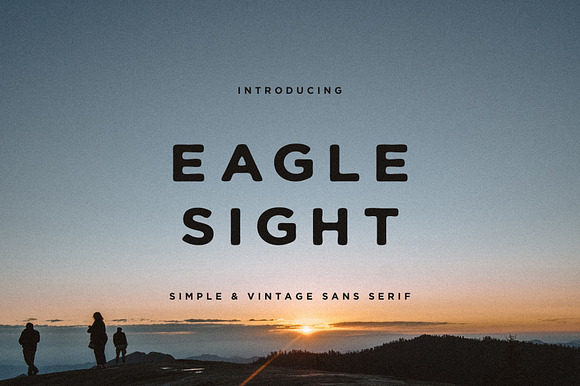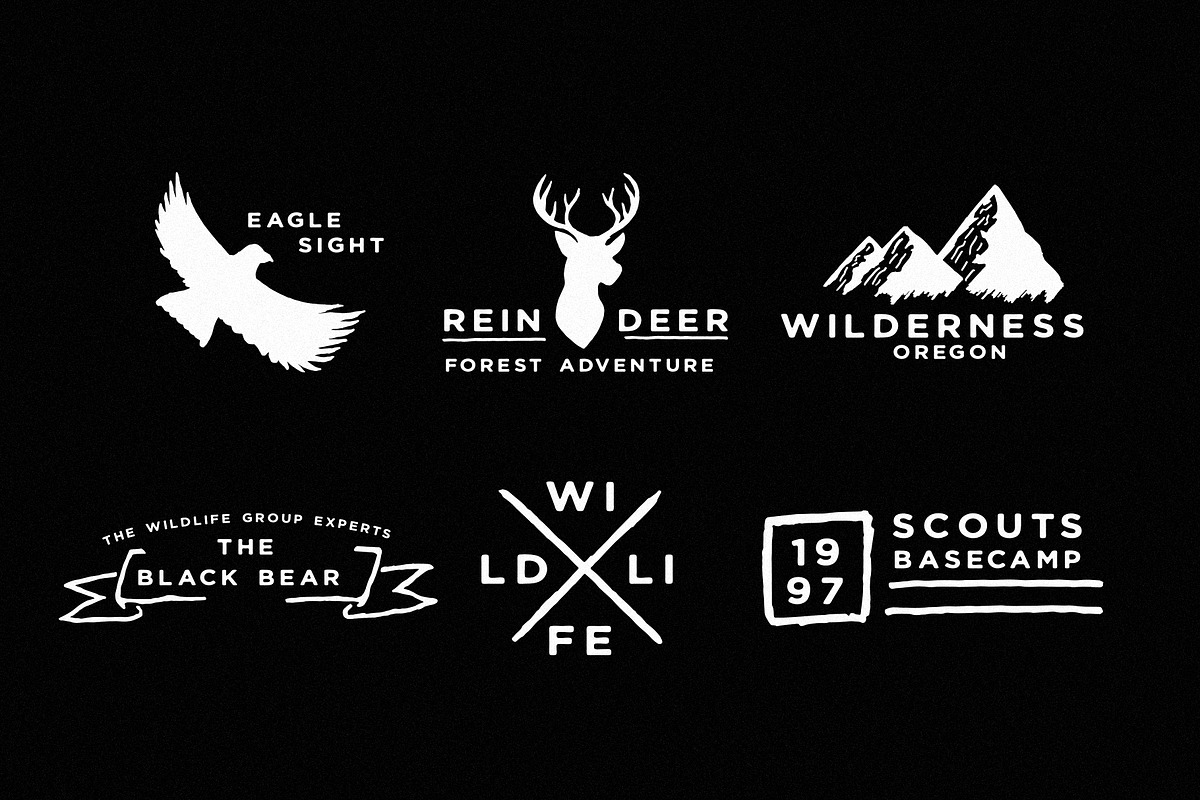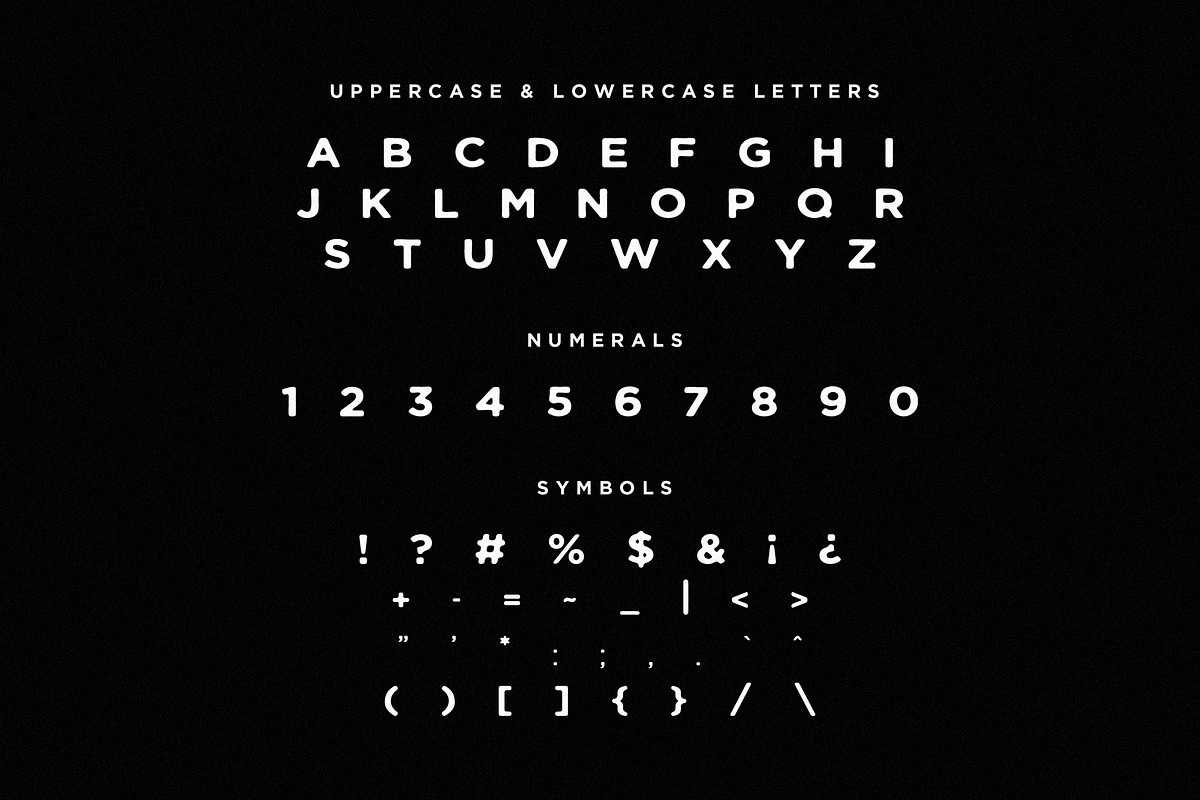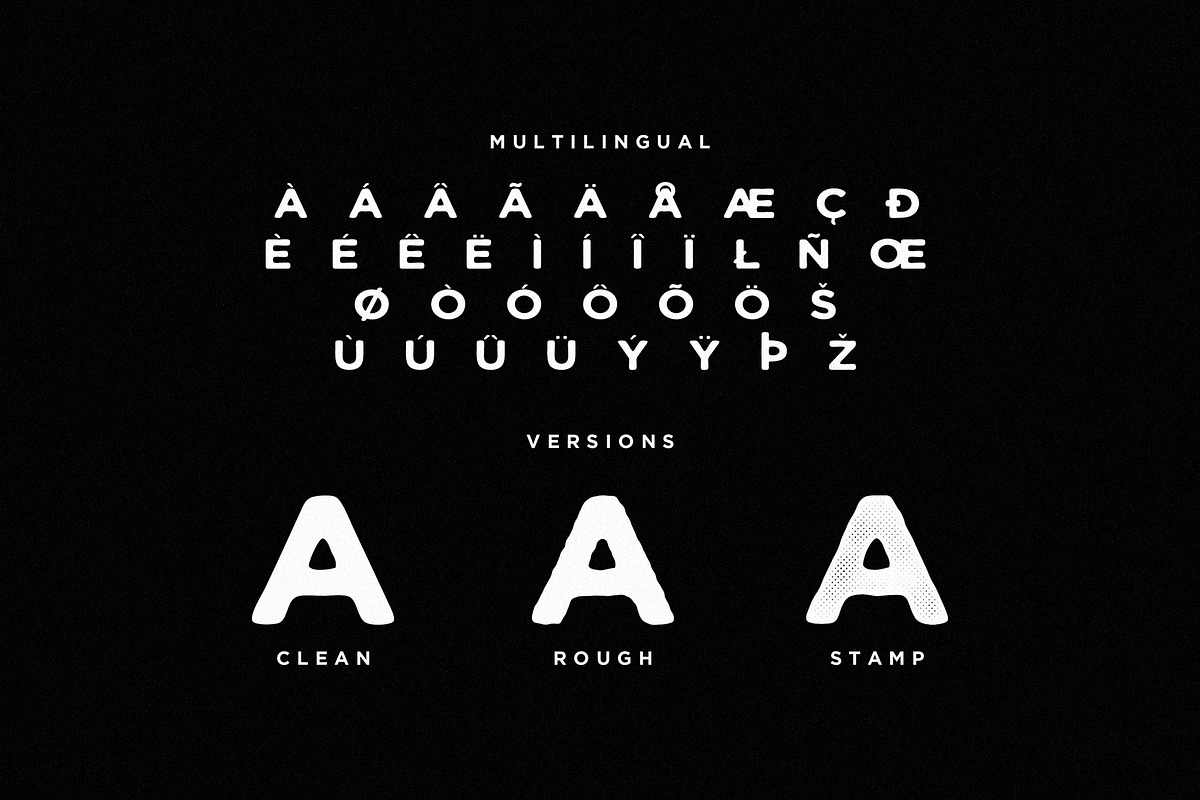
Eagle Sight Font + Extras
Eagle Sight is a simple & vintage hand drawn font with a clean look which is perfect for logo design, branding, mockups, etc. Eagle Sight can be paired with other vintage fonts.
Eagle Sight features:
3 Versions: Regular, Rough, Stamp